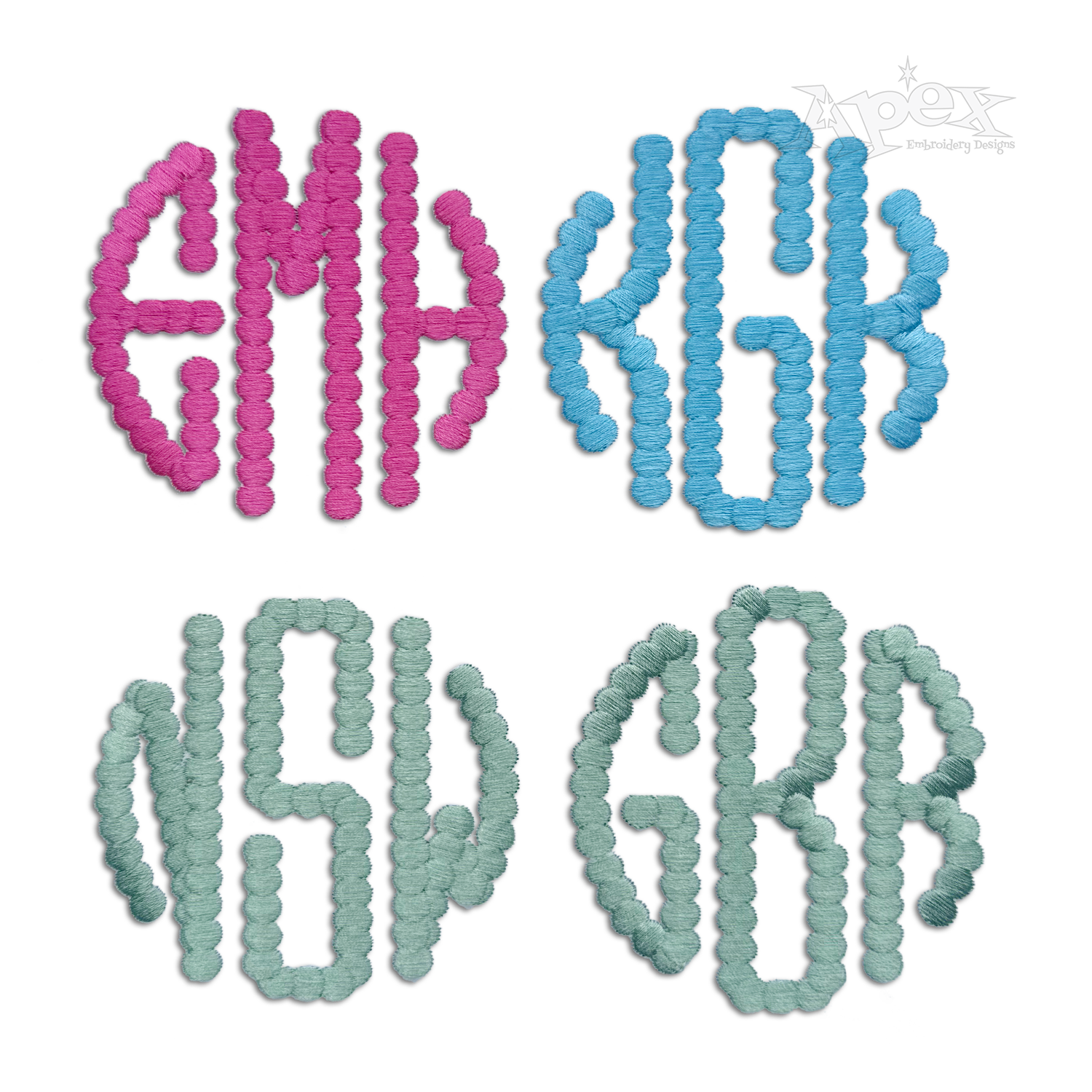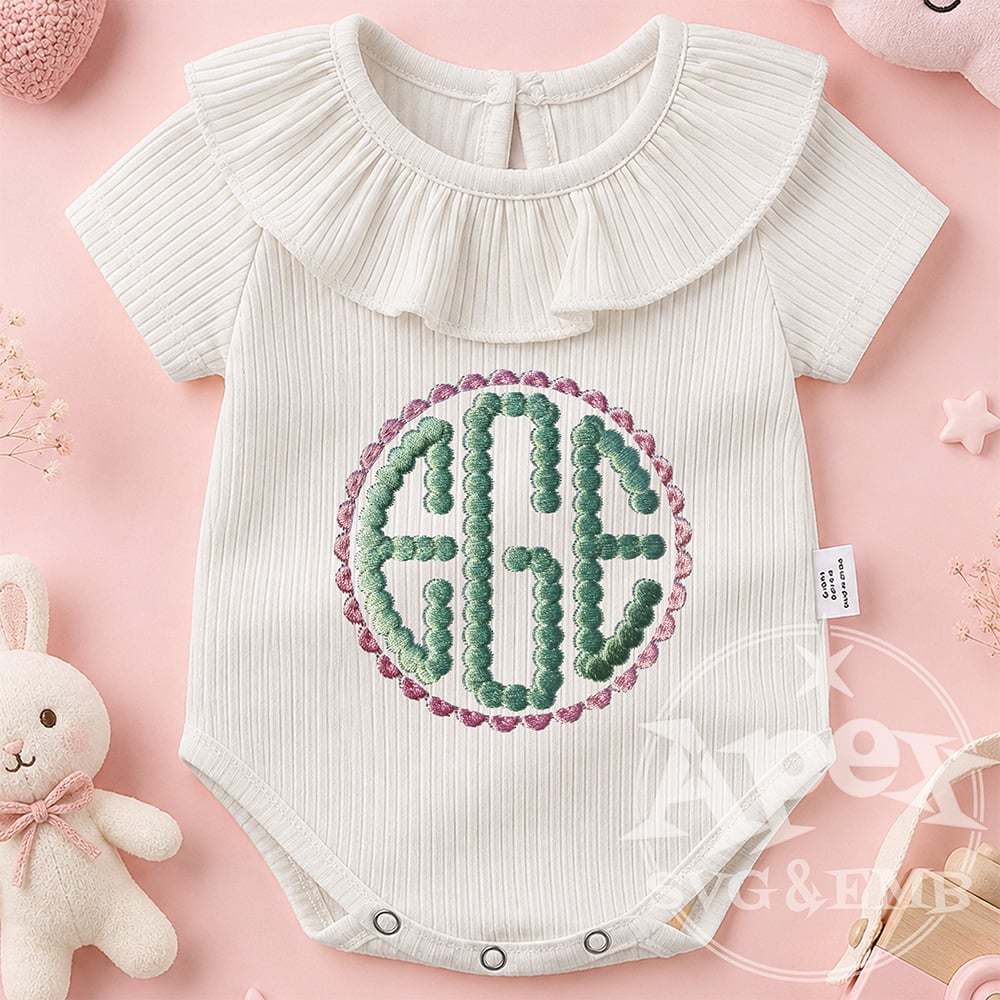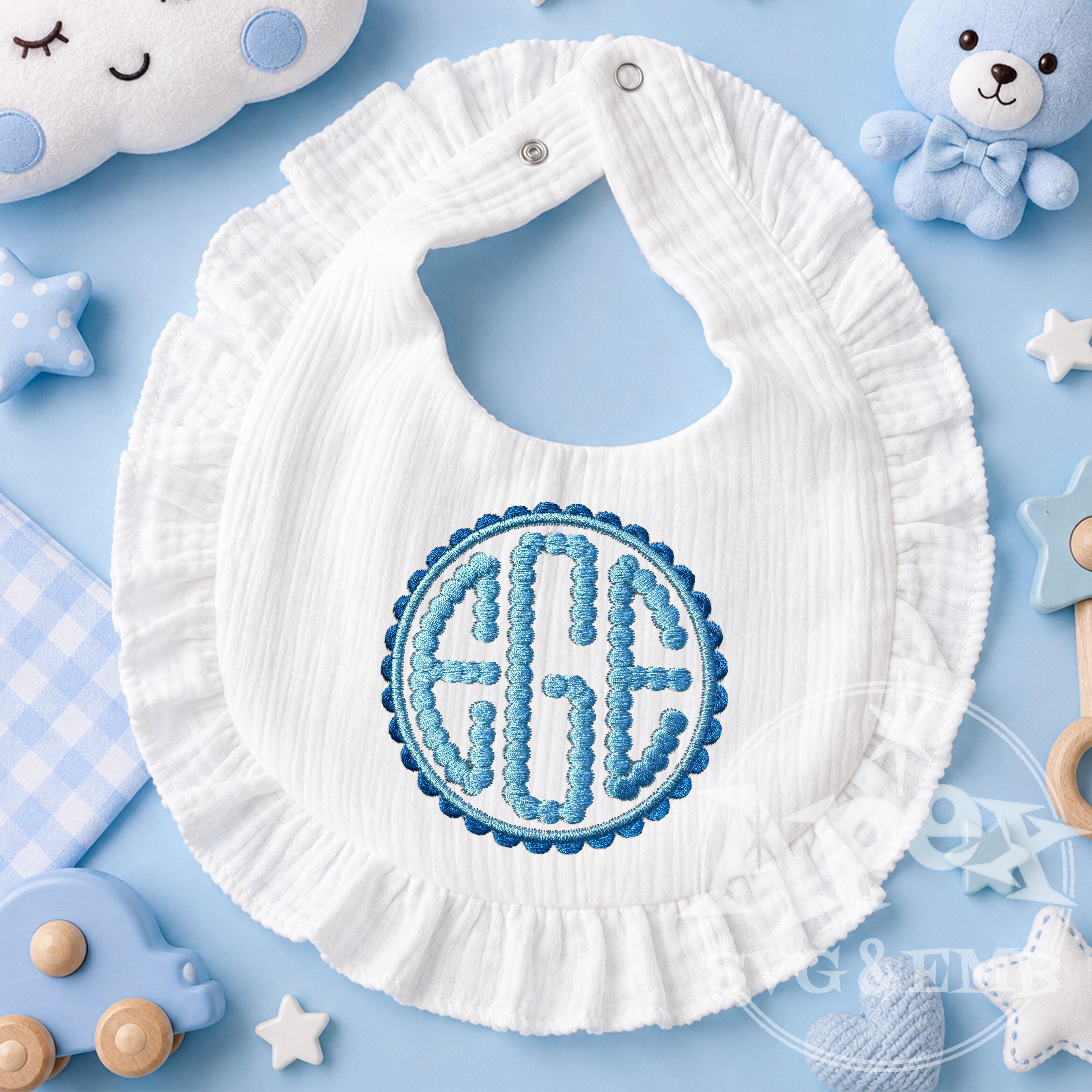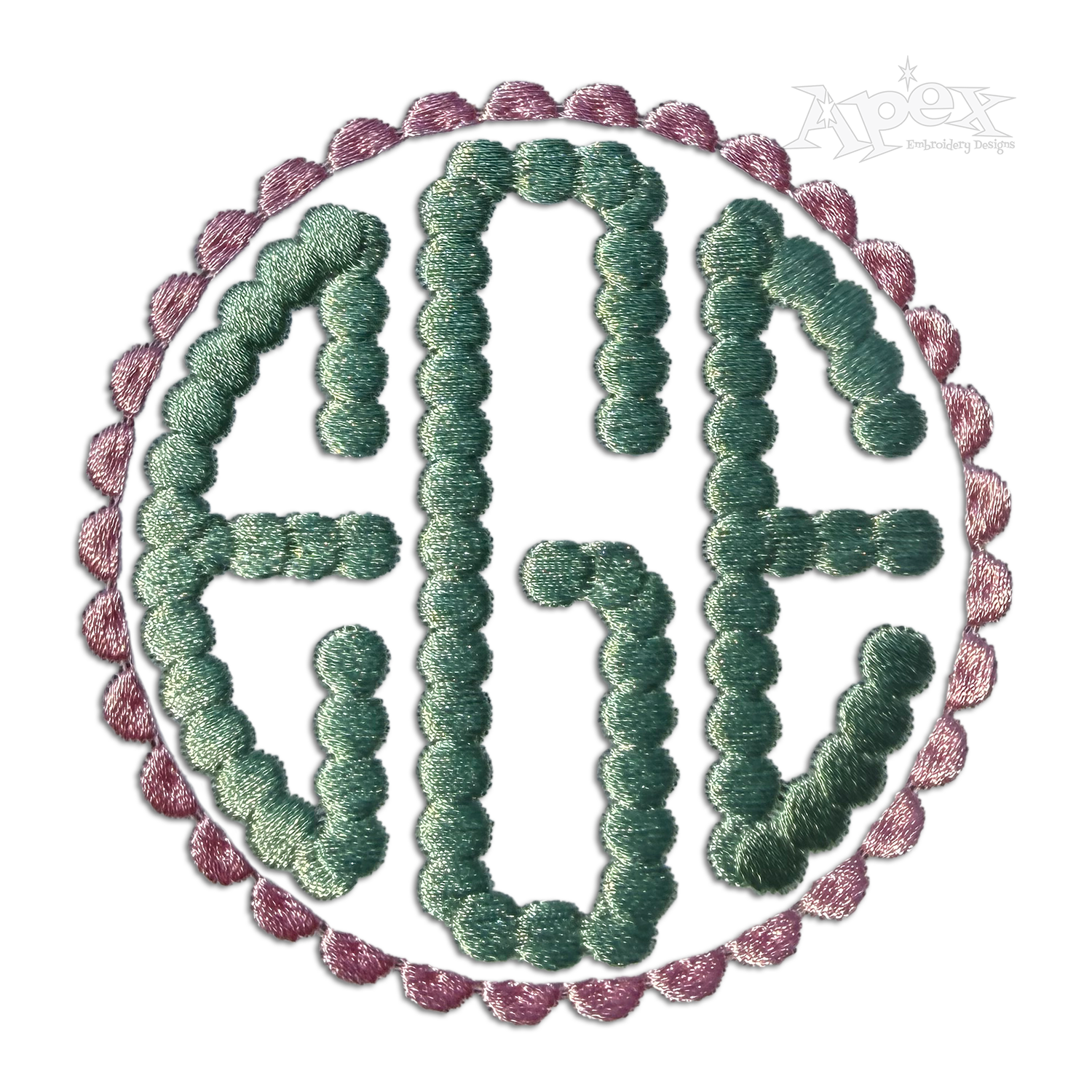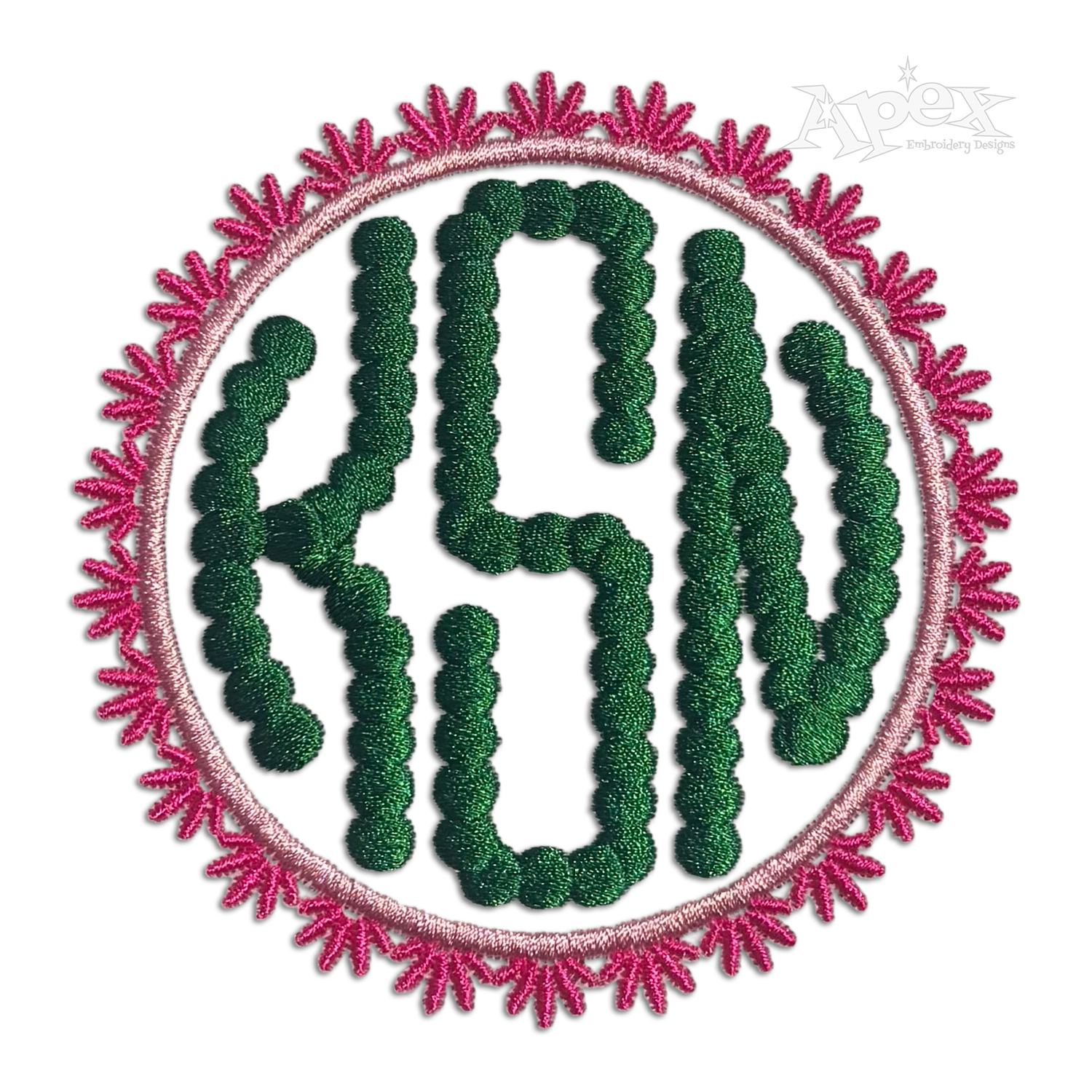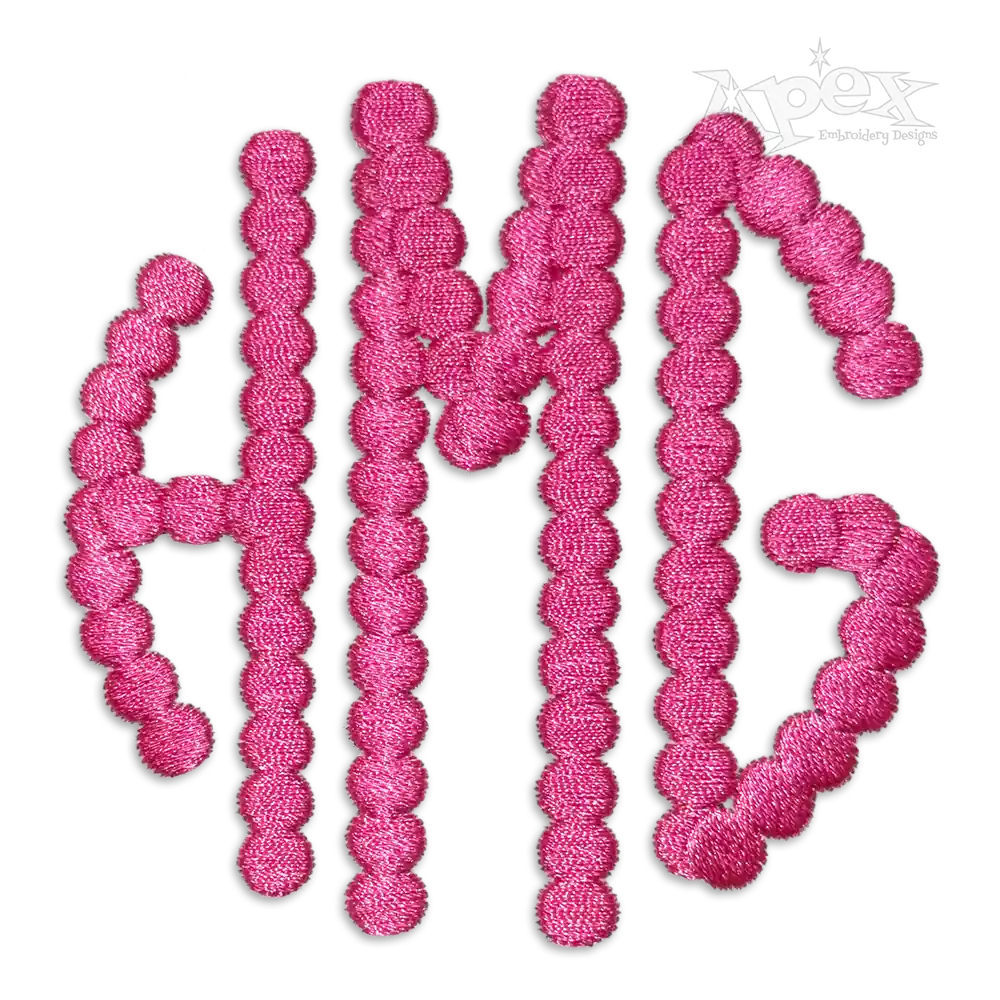
Dottie Bead Circle Monogram Embroidery Font
Create Polka Dot style personalized gifts and home d?cor with this String of Pearls Polka Dottie Monogram Embroidery Font. Featuring a classic retro polka dotted monogram set is perfect for customizing Wedding Gifts hats, linens, towels, baby gifts, tote bags, and more.
- String of Pearls Dottie Monogram Font Bundle